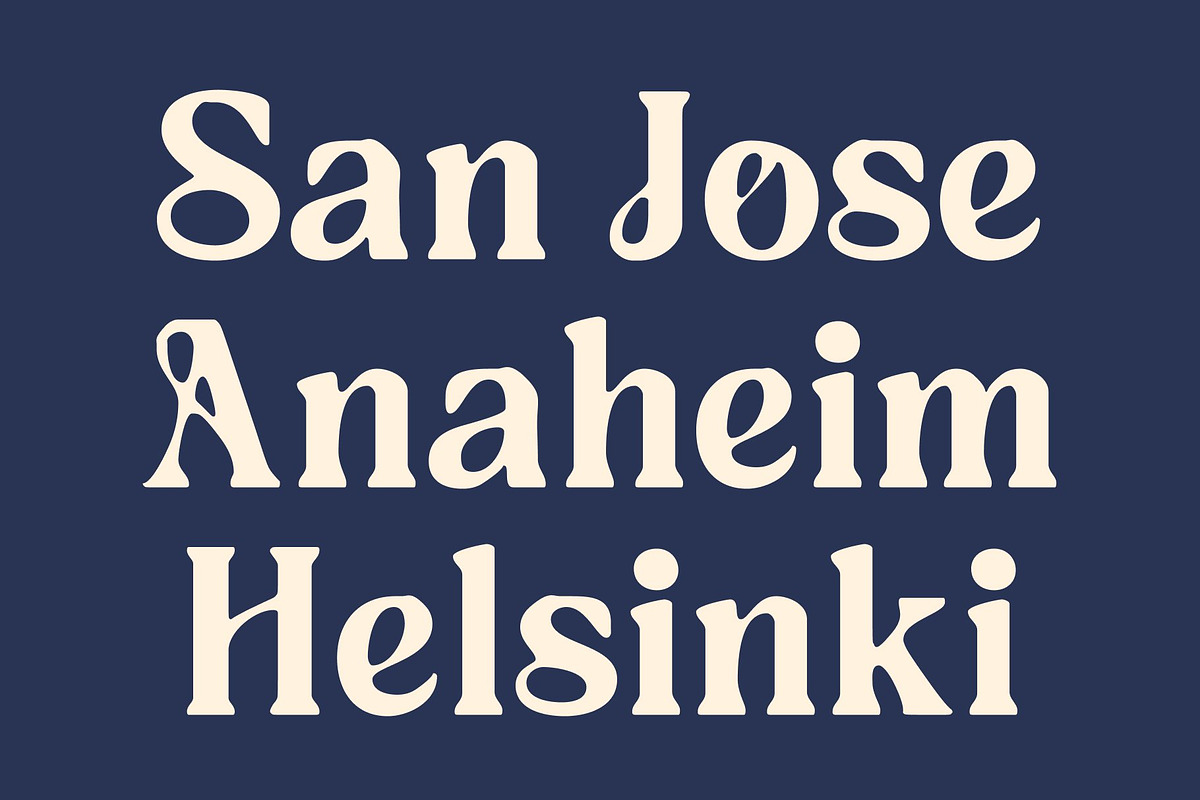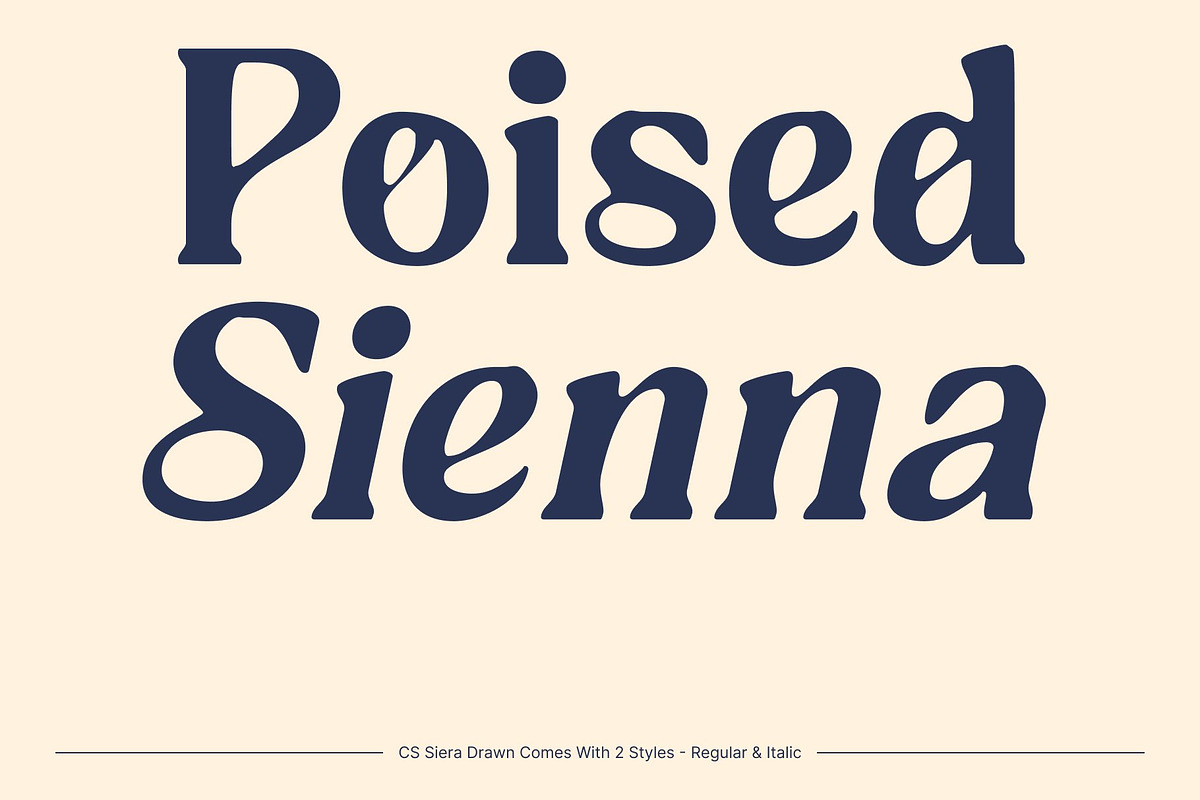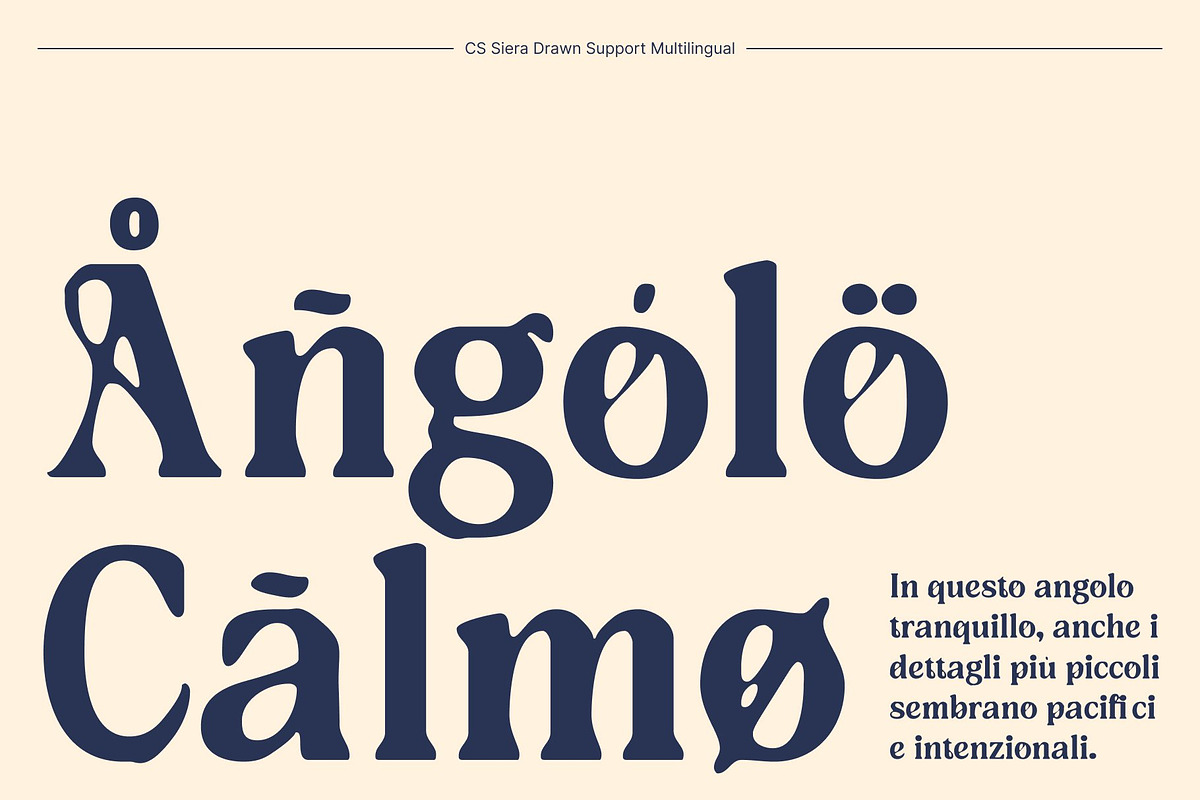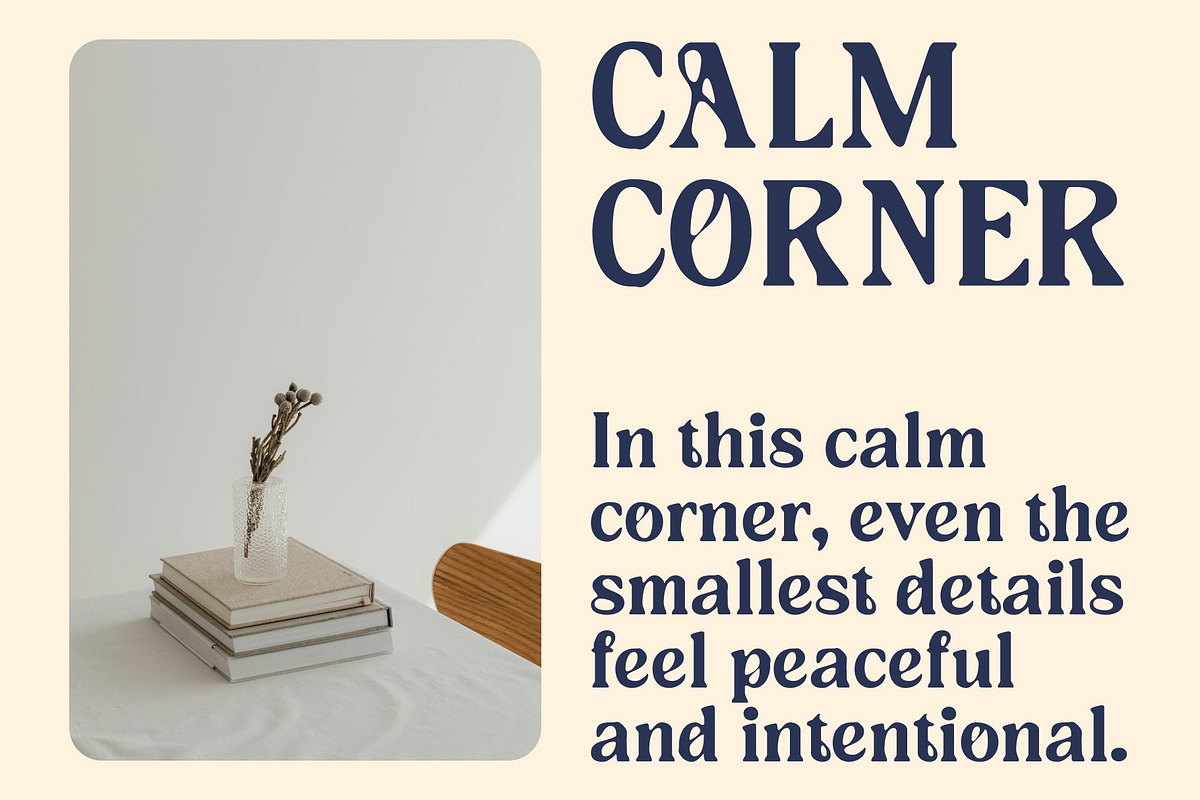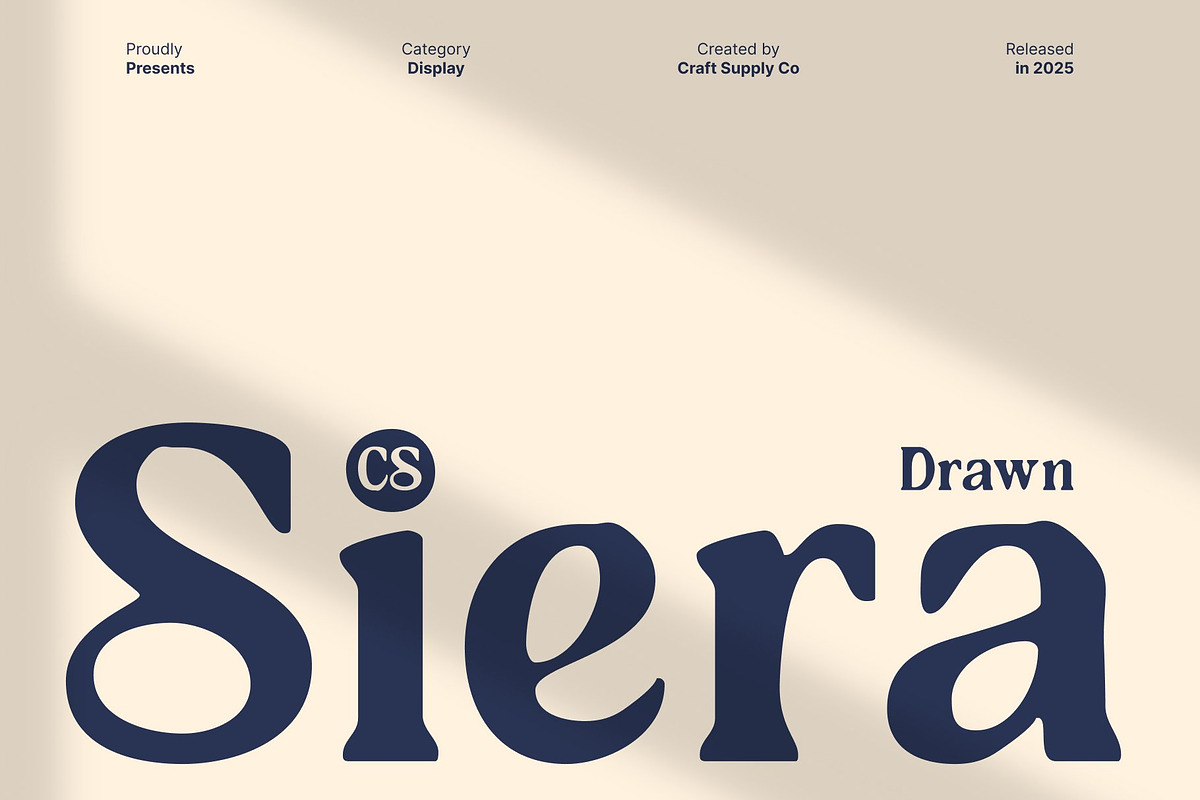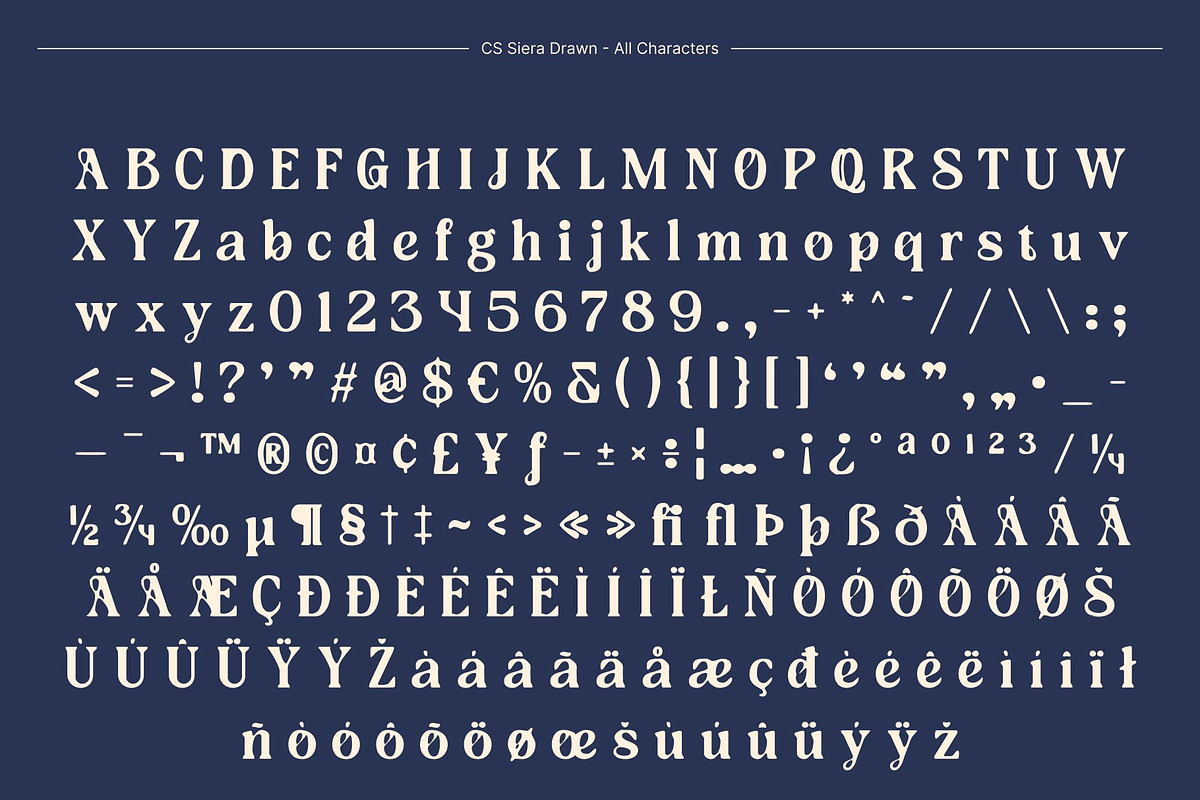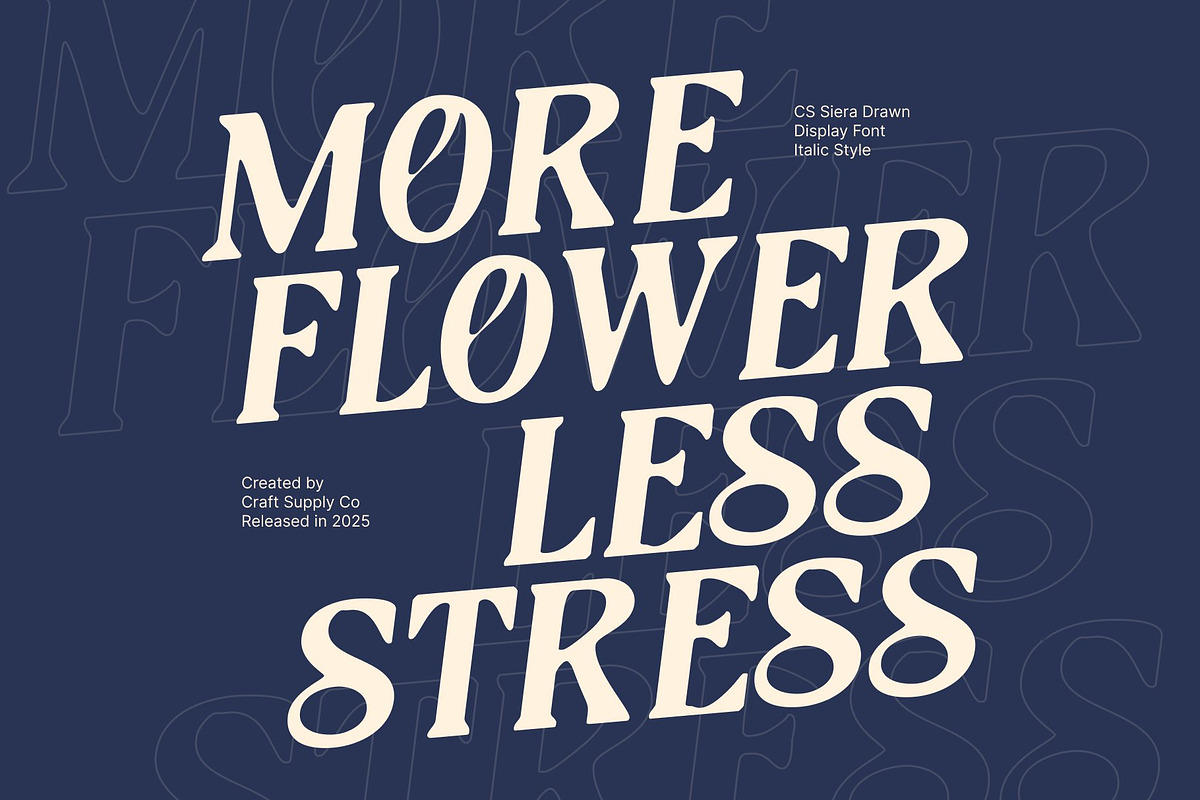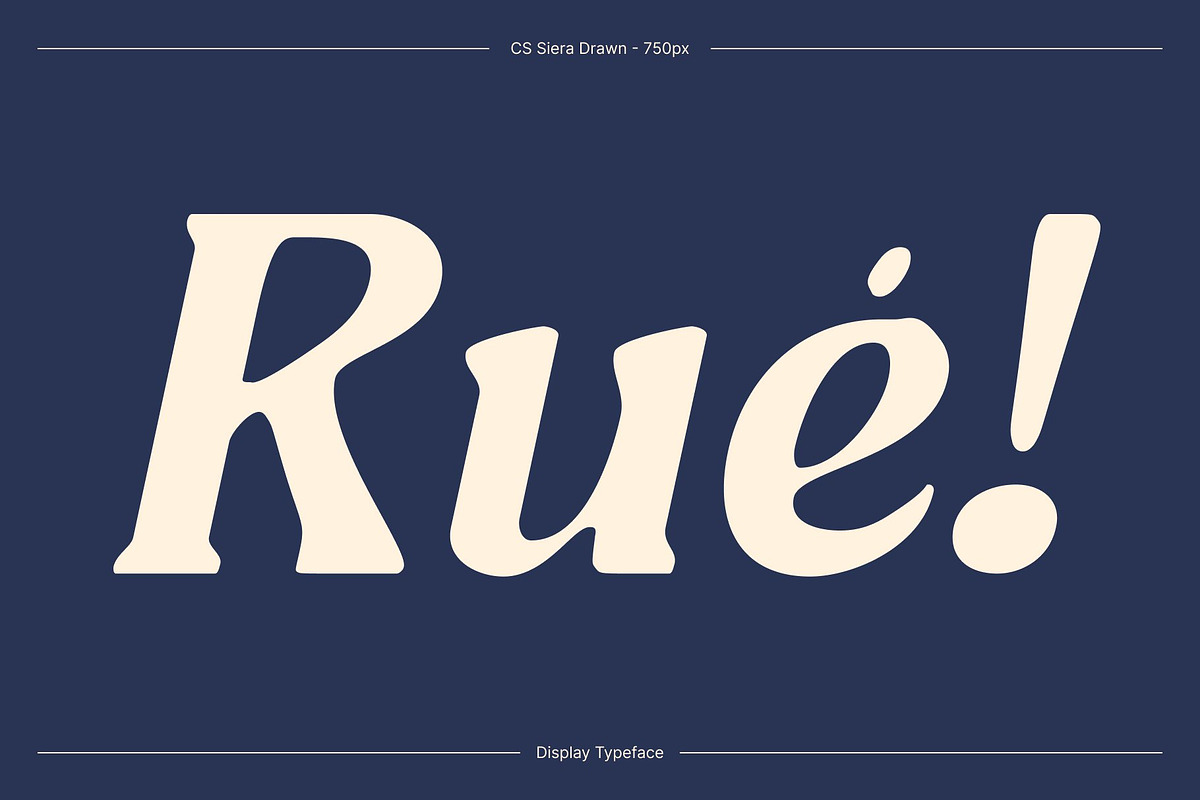
CS Siera Drawn
CS Siera Drawn – Soft Serif Font with Trendy Artistic
Gentle Curves That Feel Stylish and Refined This is a true soft serif font that highlights smooth curves and delicate proportions to create a calm, elegant, and visually pleasing appearance. Its serif details give the typeface a graceful flow, allowing every word to feel warm and inviting. The overall structure remains clean and modern, ensuring the font looks polished while maintaining a soft, friendly personality that feels effortlessly stylish.
Drawn Texture for Artistic and Expressive Beauty The drawn texture adds an artistic, handcrafted layer that elevates the font beyond traditional serif styles. Subtle imperfections and organic strokes introduce depth and emotion, giving each character a unique and expressive quality. This handmade feel softens the elegance of the serif forms, making the font feel more personal, creative, and visually engaging.
Instagram-Ready Look for Modern Visual Culture Designed with contemporary aesthetics in mind, delivers a trendy, Instagram-ready look that feels fashionable and current. Its soft elegance photographs beautifully, making it ideal for social media visuals, lifestyle content, and modern posters that aim to feel curated, stylish, and eye-catching without being overpowering.
Perfect for Fashion, Social Media, and Modern Branding This is an excellent choice for fashion branding, beauty products, layouts, and digital projects. It balances softness with clarity, elegance with artistry, and expression allowing designers to create visuals that feel modern, beautiful, and emotionally appealing across both print and digital platforms.